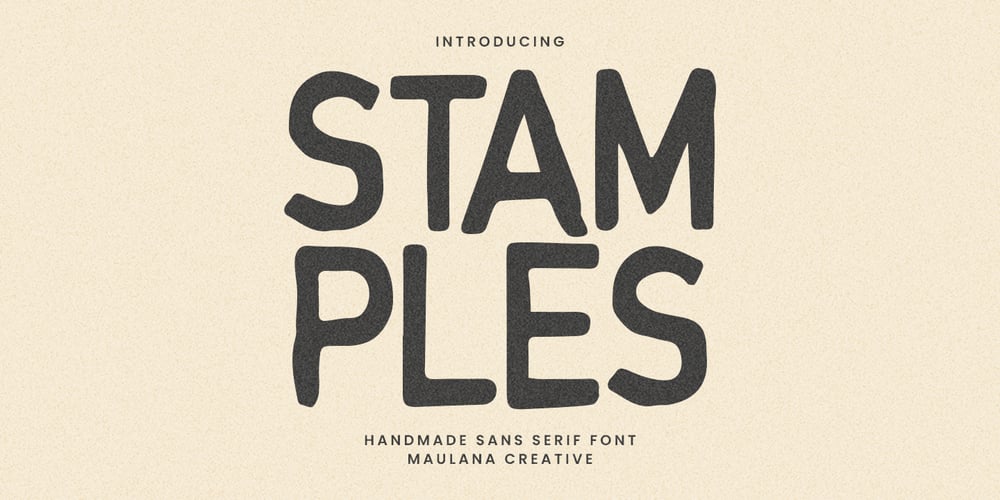
MC Stamples
MC Stamples font
MC Stamples Font Family was designed by Gilang Maulana and published by Maulana Creative. MC Stamples contains 1 styles and family package options. Stamples is a handmade sans serif font. Heavy stroke, fun character with a bit of ligatures. To give you an extra creative work. Stamples is a handmade sans serif font support multilingual more than 100+ language. This font is good for logo design, Social media, Movie Titles, Books Titles, a short text even a long text letter and good for your secondary text font with script or serif. Make a stunning work with Stamples is a handmade sans serif font.